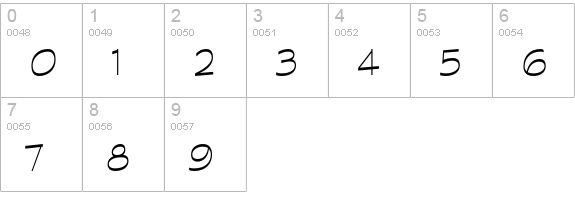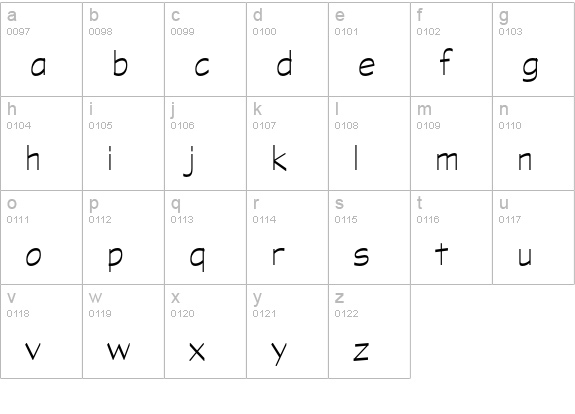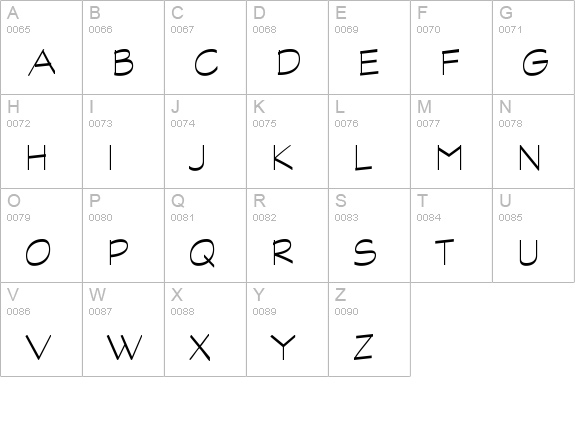
Graphite Std Light Font Details
Graphite Std Light is a refined, elegant variant in the Graphite typeface family \xE2\x80\x94 well suited to elegant body text, refined sub-headings, and luxury branding.